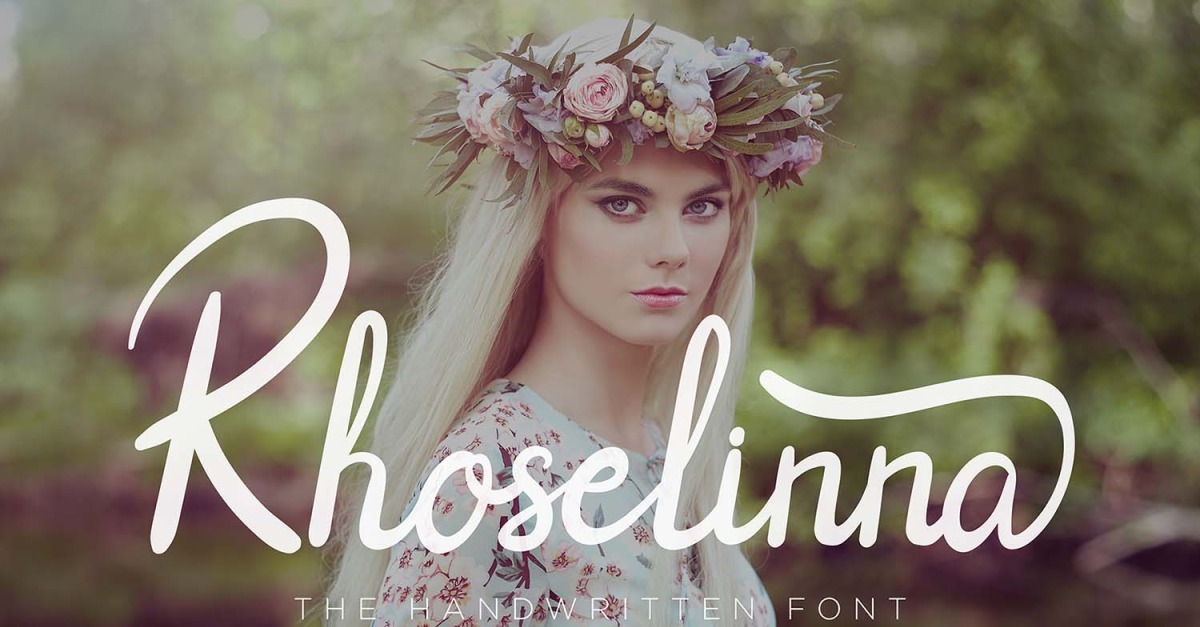
Rhoselinna - Handwritten Font
Rhoselinna handwritten font with smooth curves is great for Branding, Logo Design, Lettering, Logotype, Clothing, Poster, magazine, packaging, posters, shopping bags, t-shirts, book covers, photography, wedding, website headline, special events, and other design projects